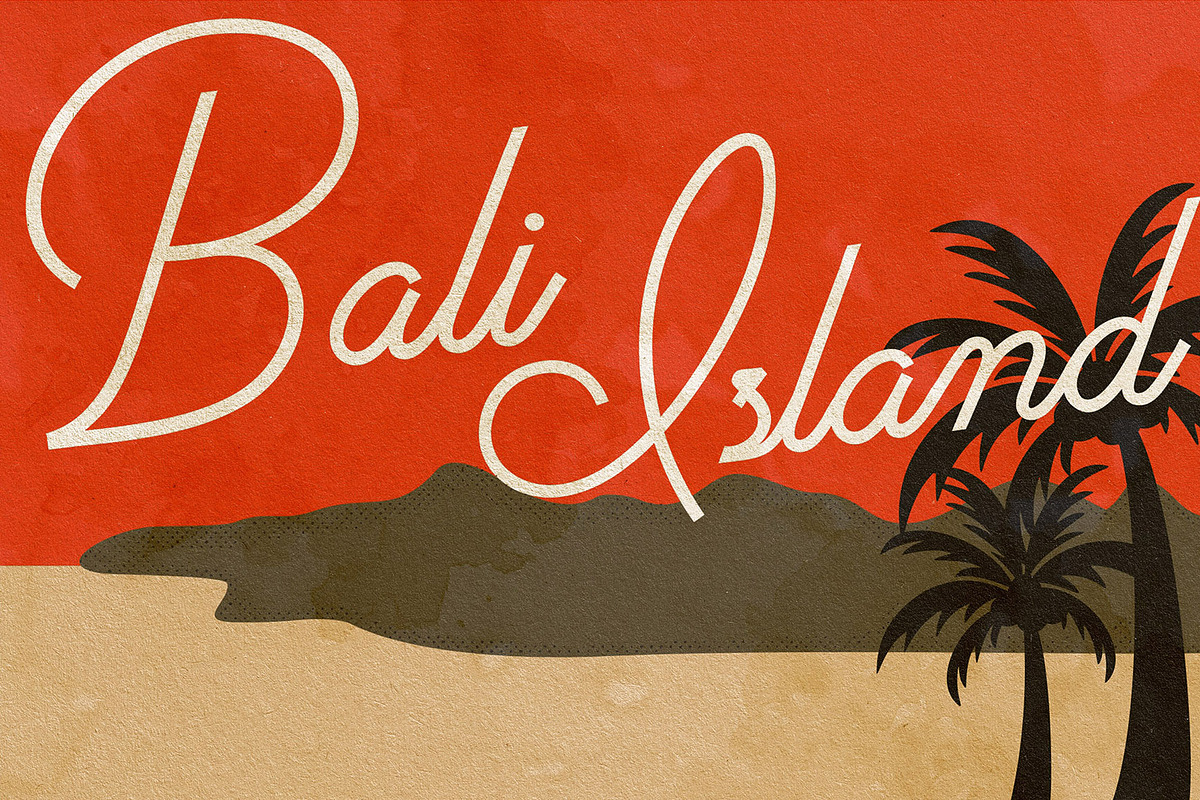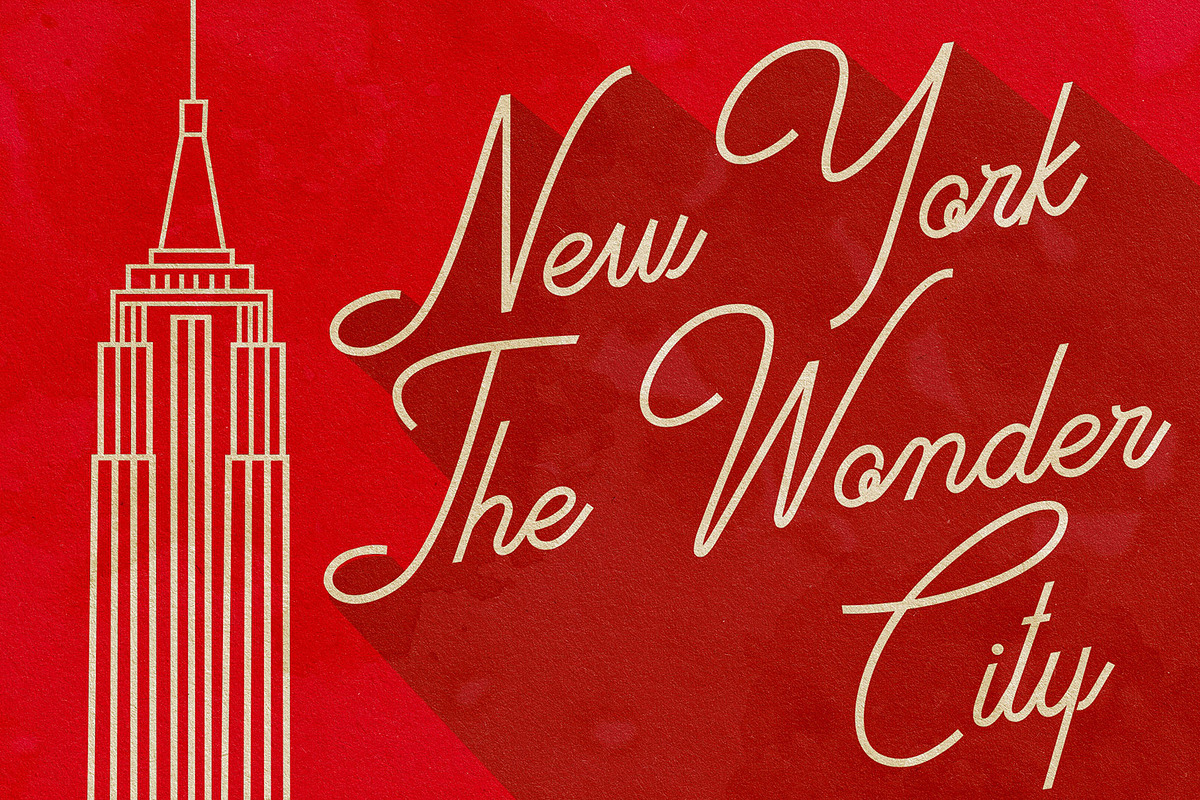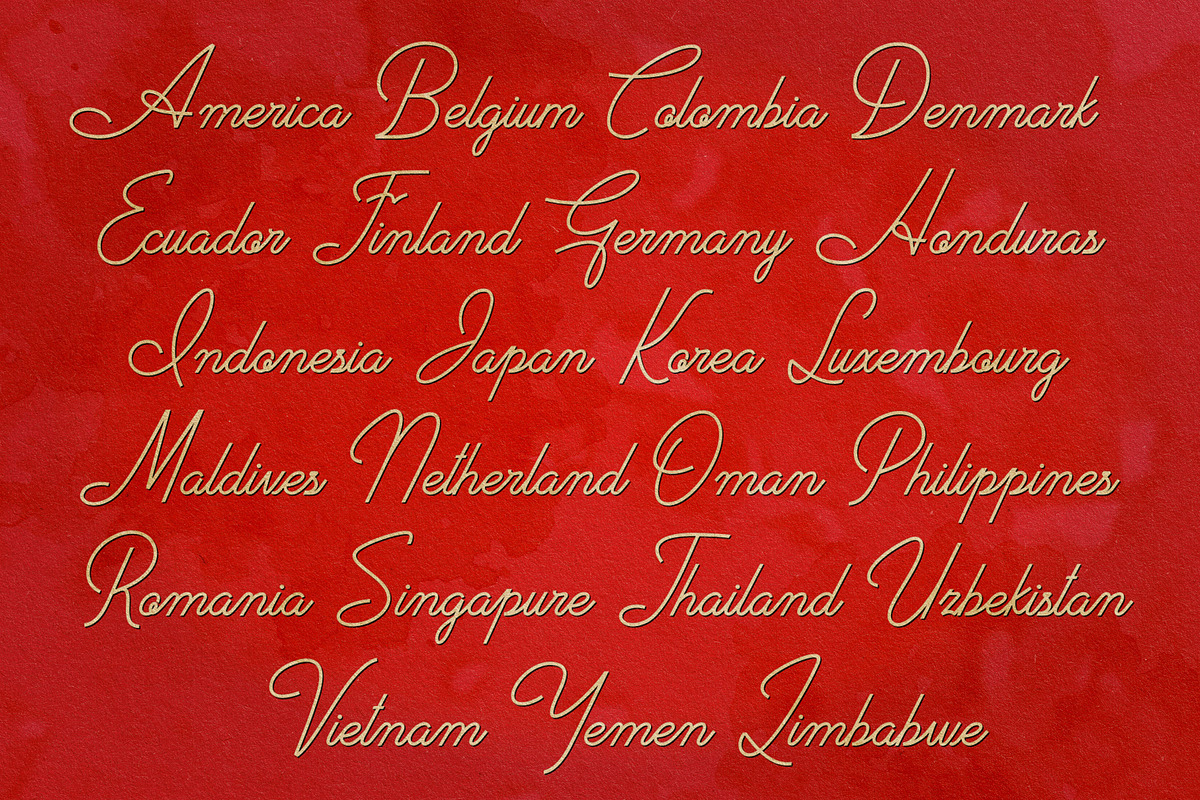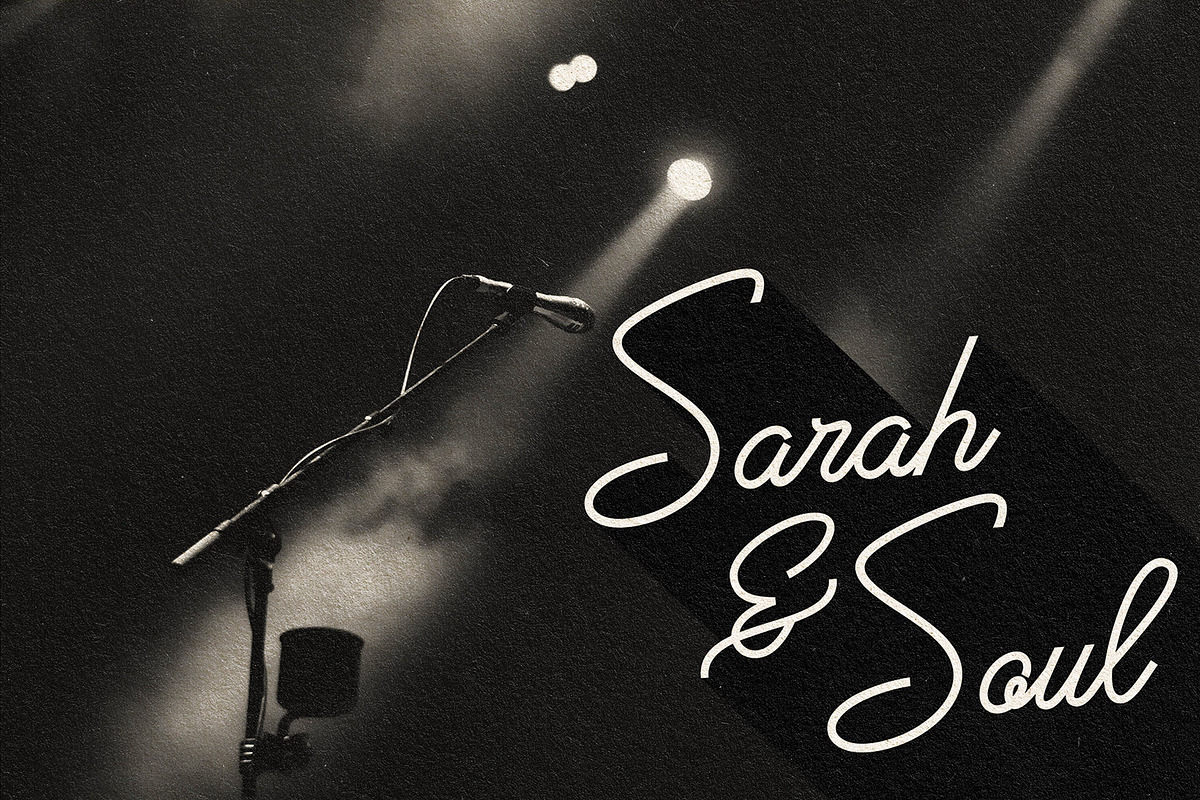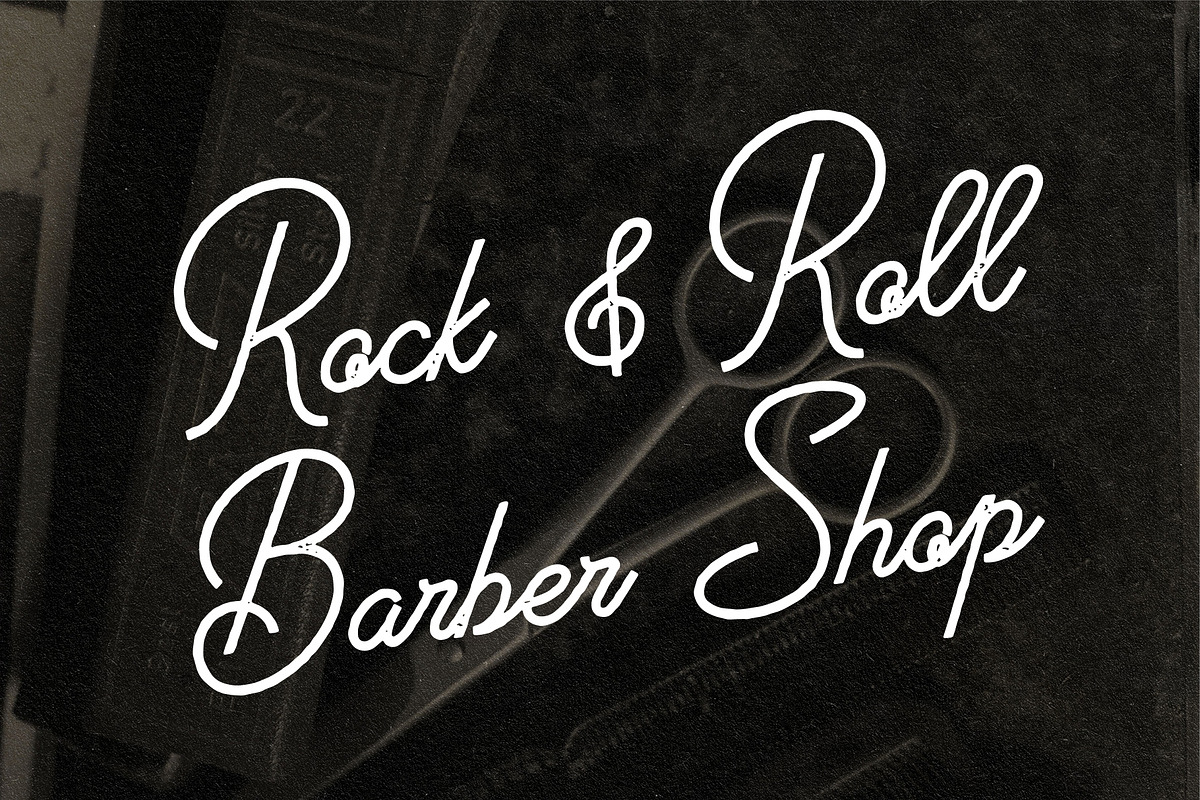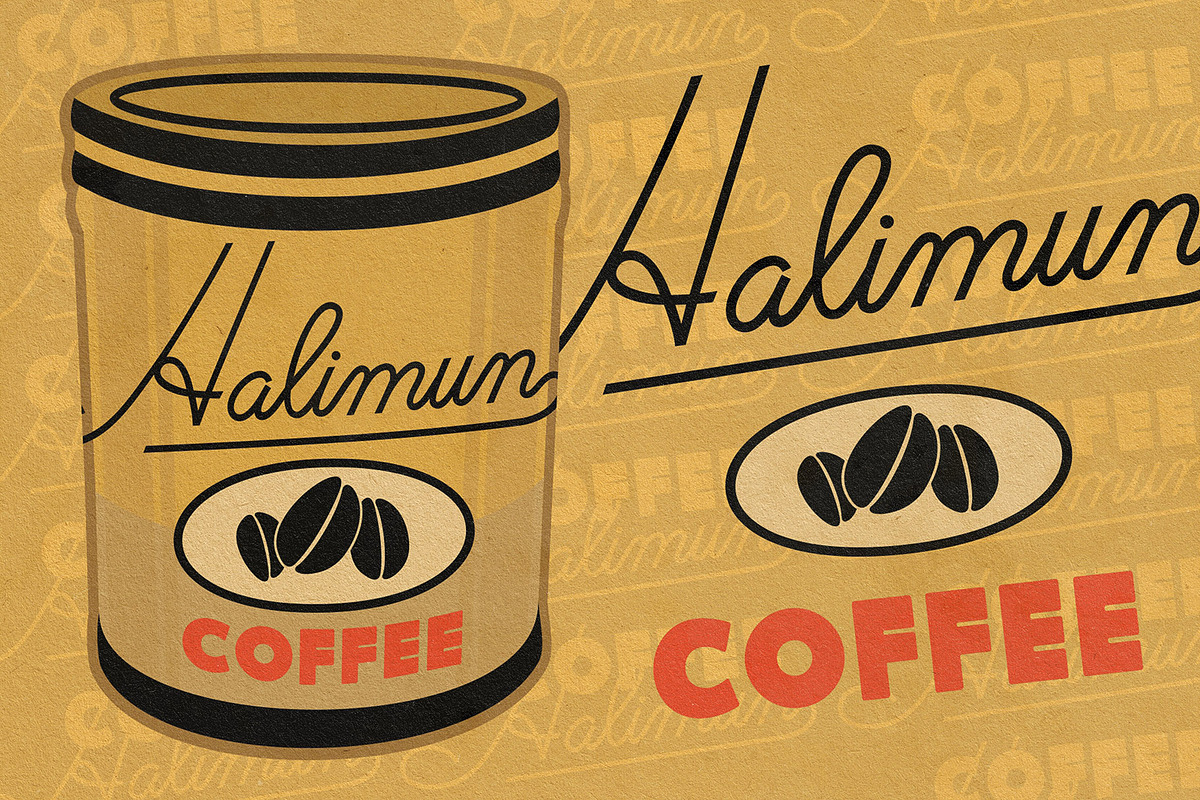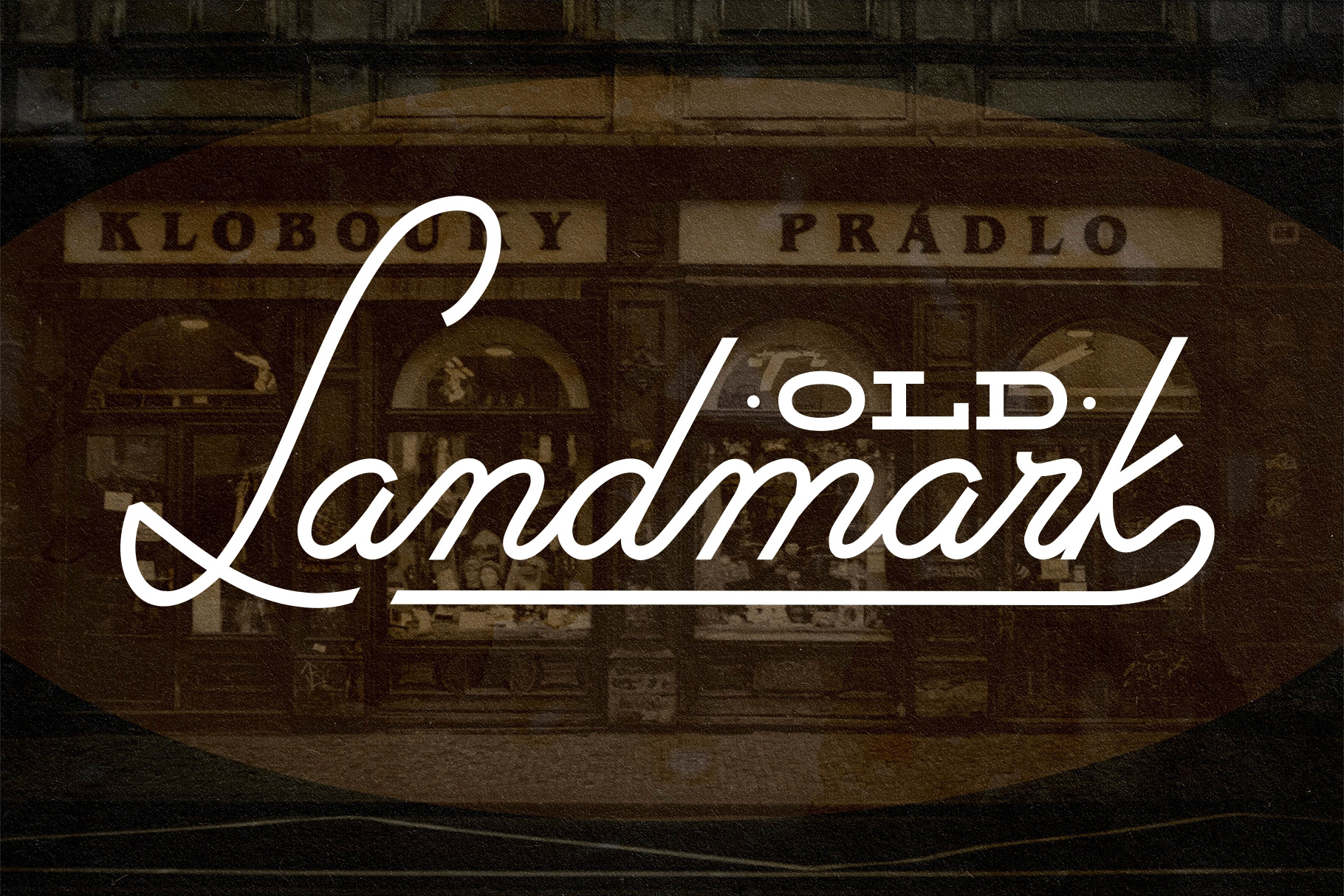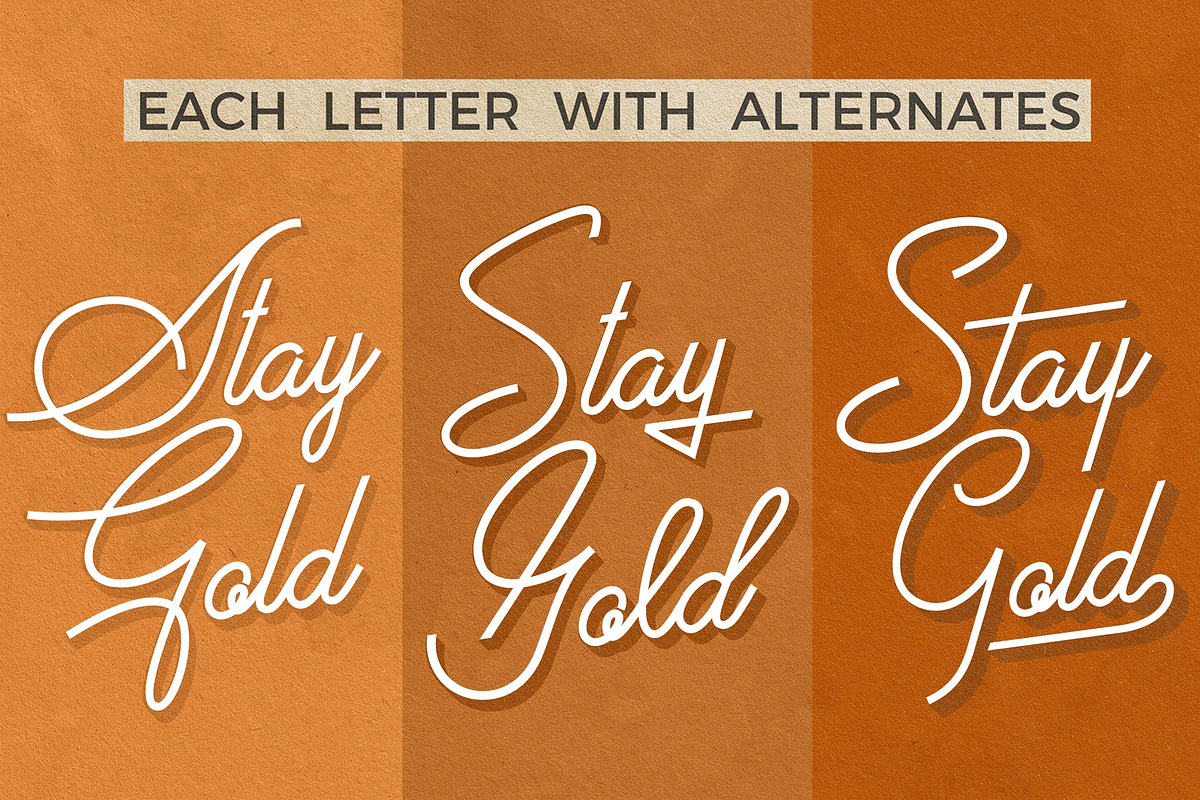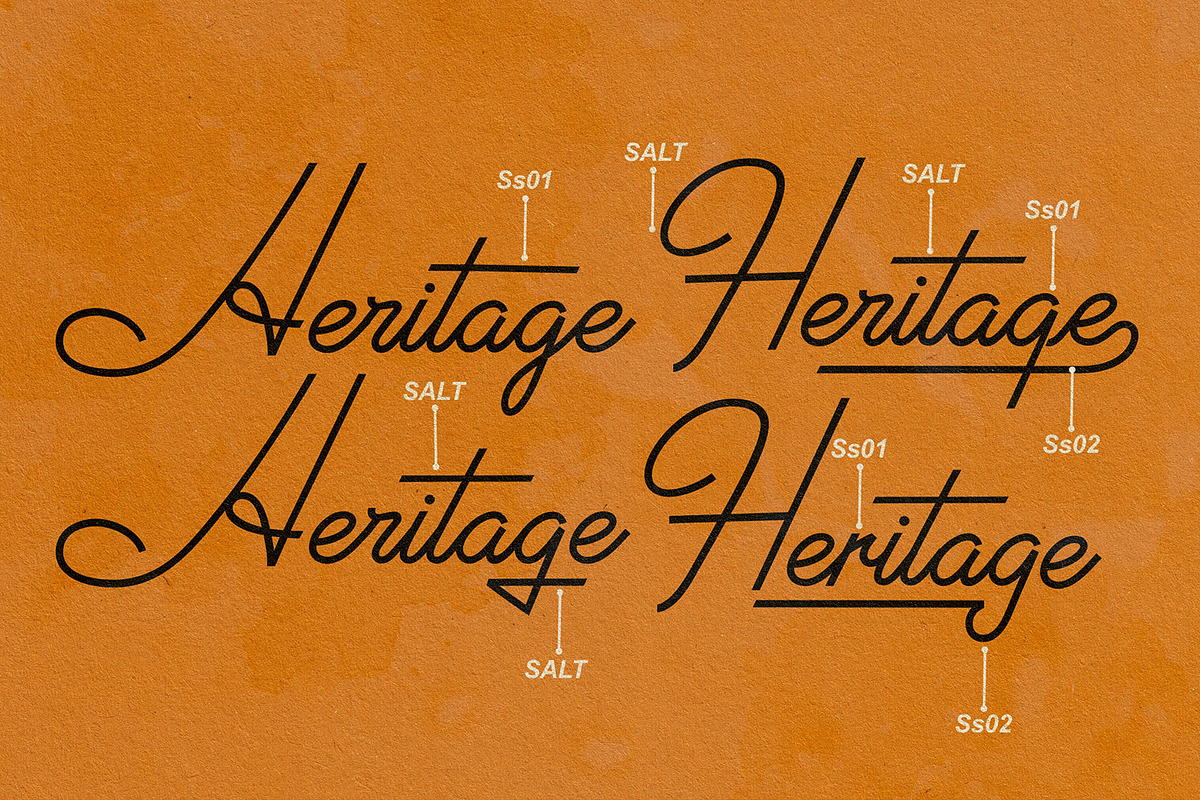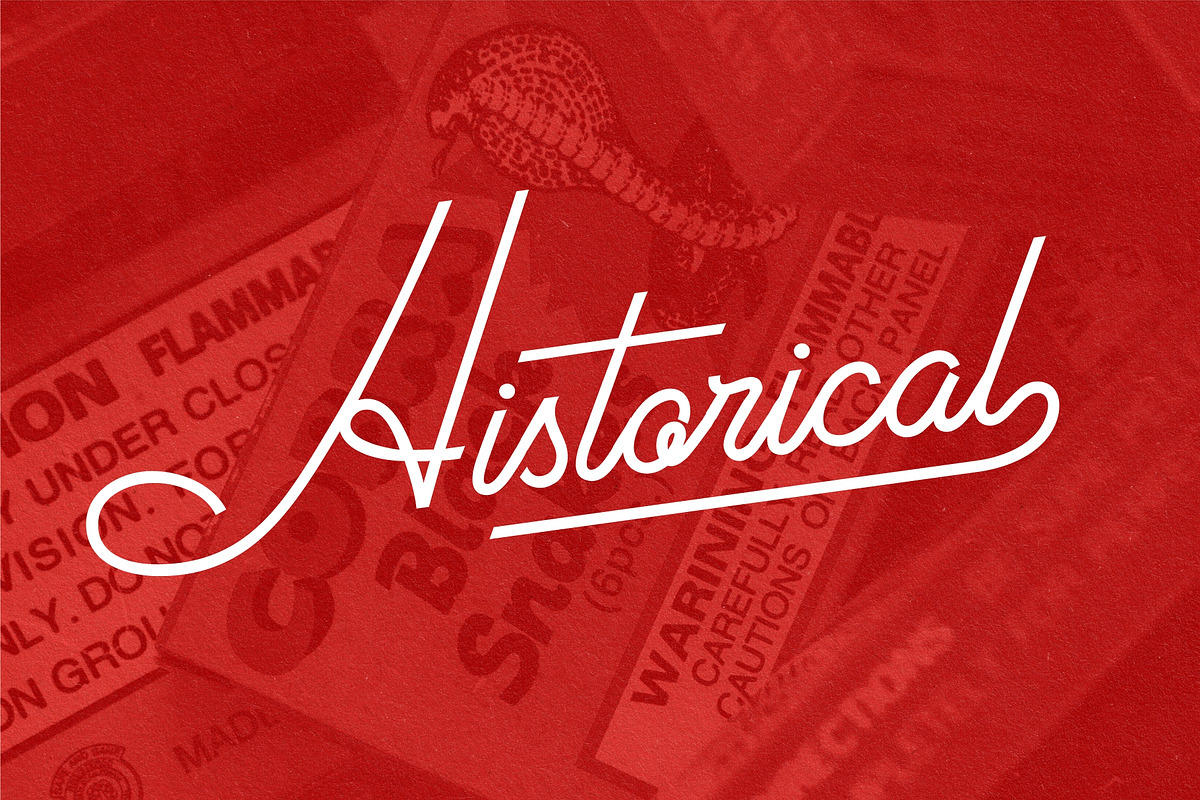
Old Landmark Font
Old Landmark is a monoline script typeface, that inspired by the old advertising posters, It is perfect for product logo, signage, branding projects, headlines, posters, packaging, clothing brand logos, Vintage design and much more.
Old Landmark comes with uppercase, lowercase, numerals, punctuation and many variations on each character, including OpenType alternates to let you customize your designs.